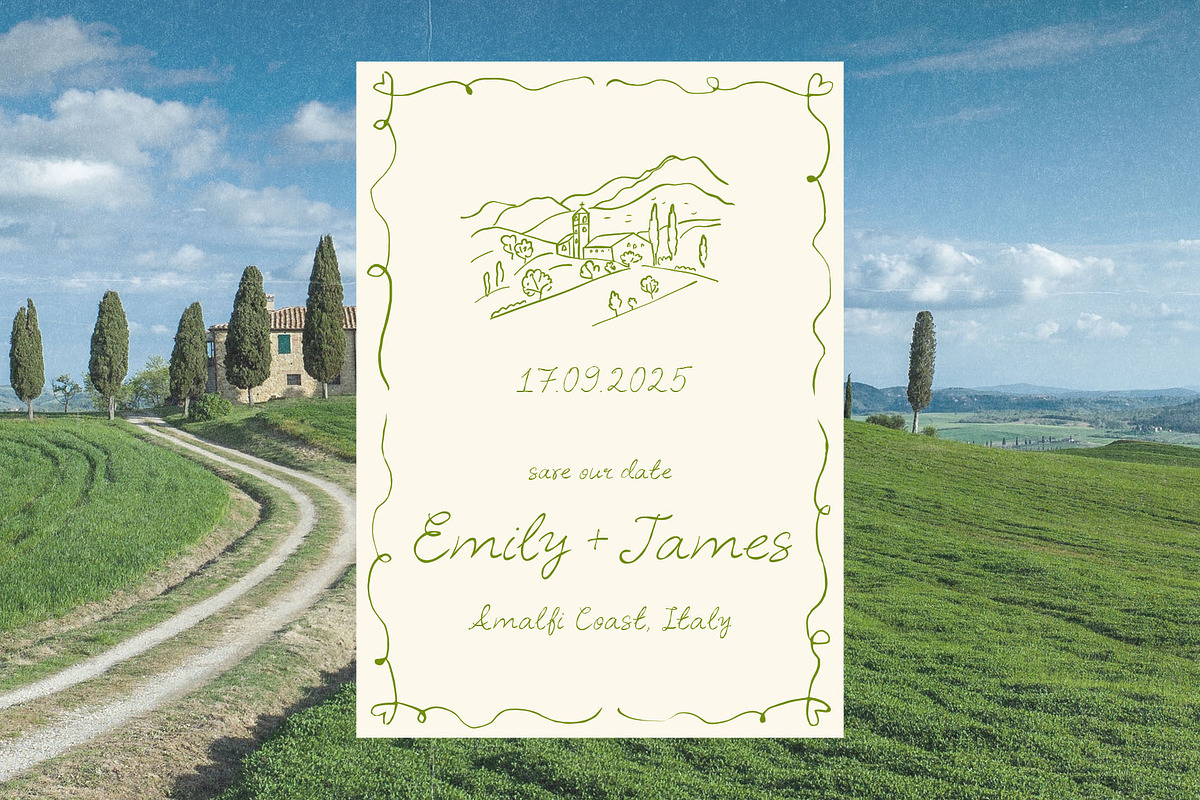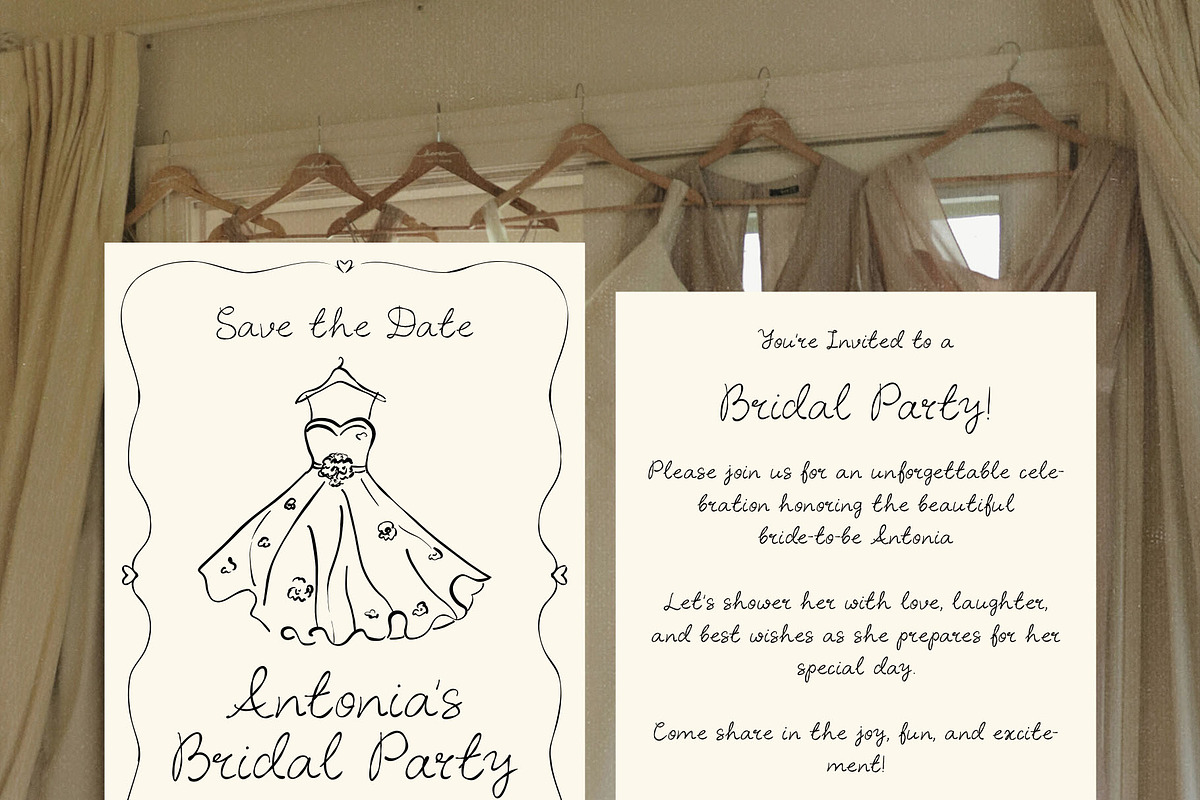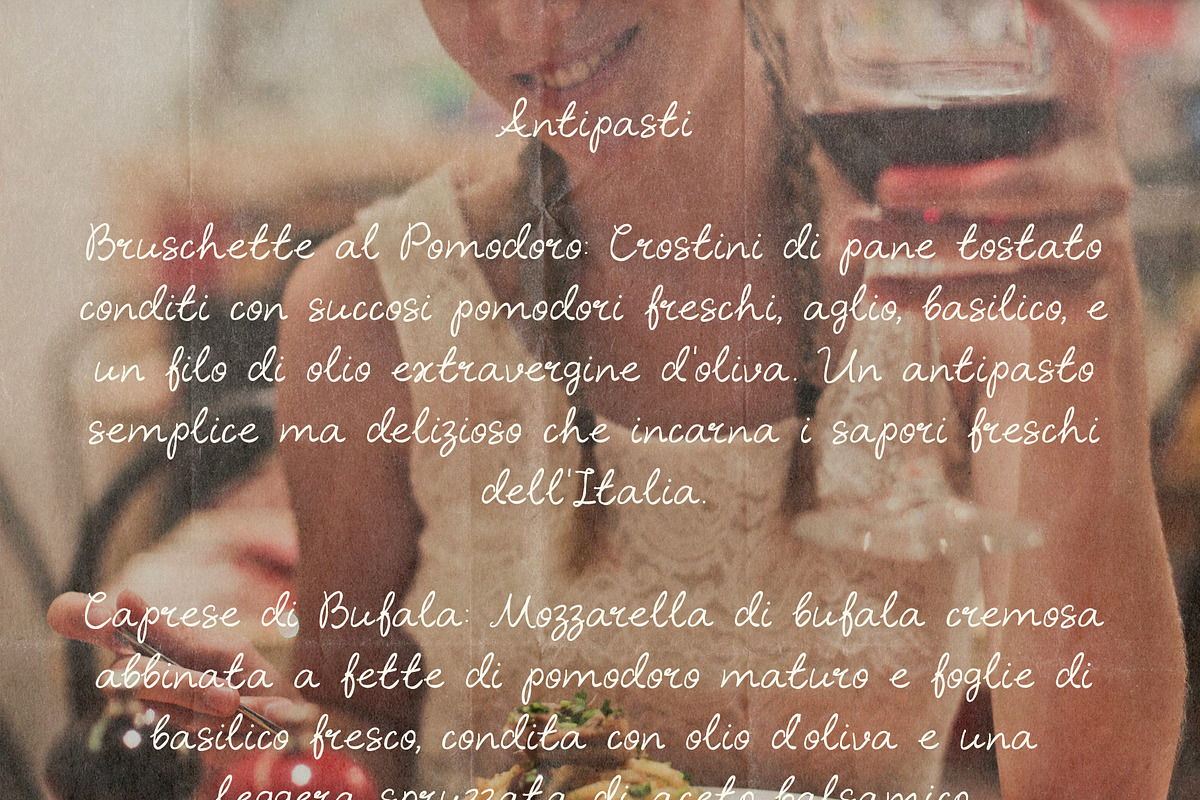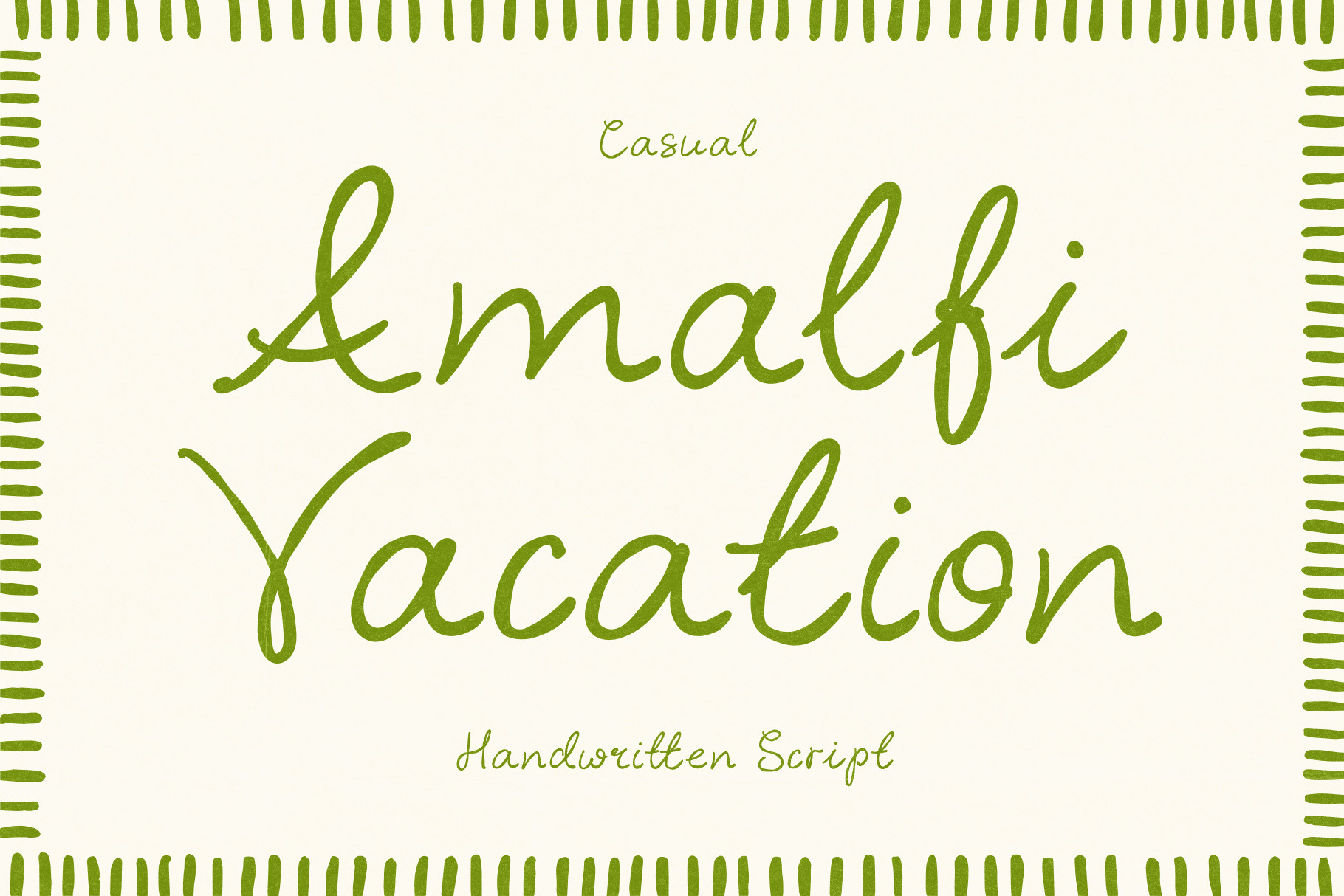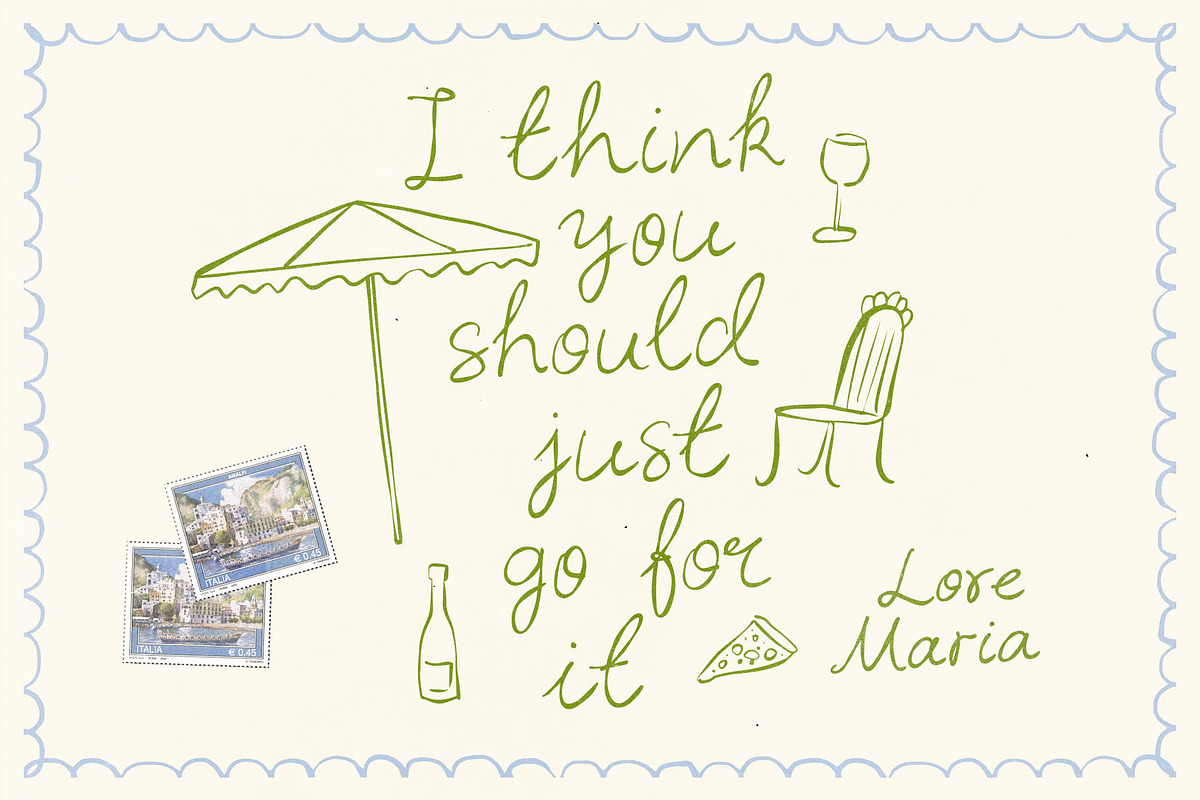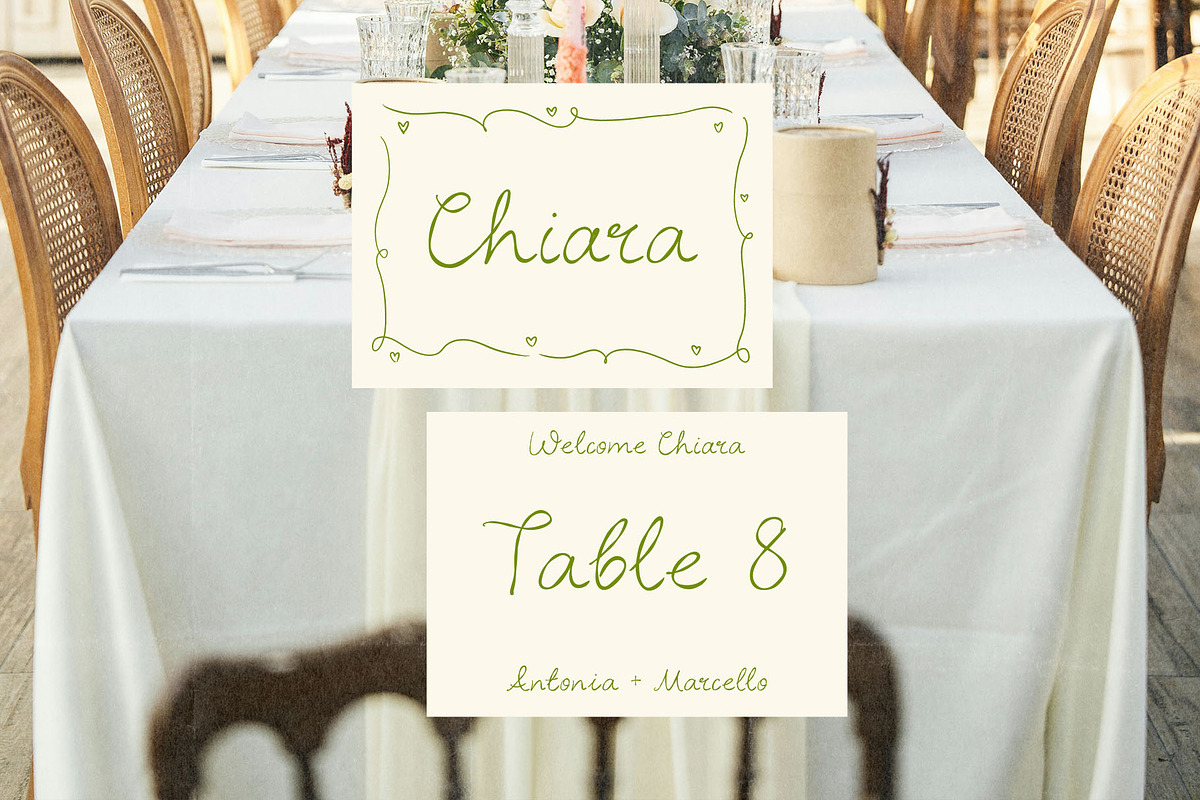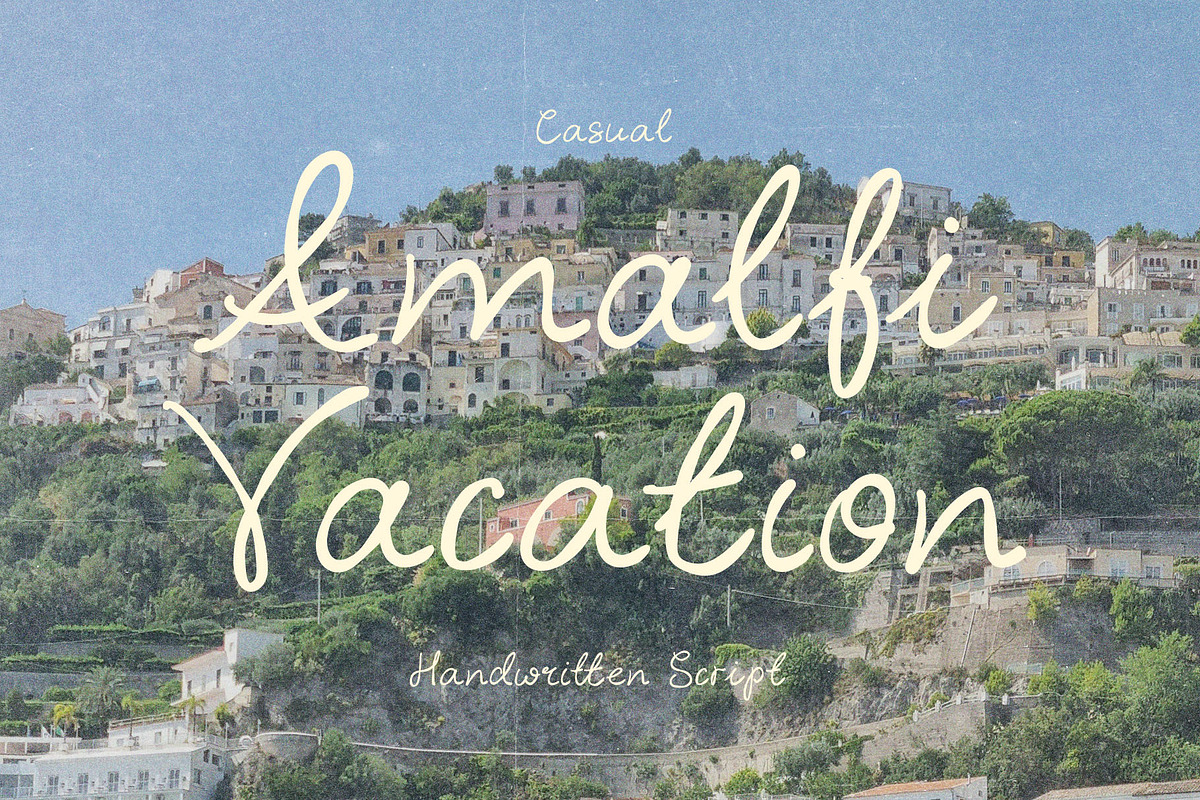
Italian Wedding Handwritten Font
Amalfi Vacation is a charming handwritten font, perfect for adding a whimsical touch to your wedding invitations, stationery, and templates. Inspired by the beauty of Italian weddings, this trendy font will bring a breezy, romantic feel to your special day. Ideal for save the dates and creating a dreamy, sophisticated aesthetic.